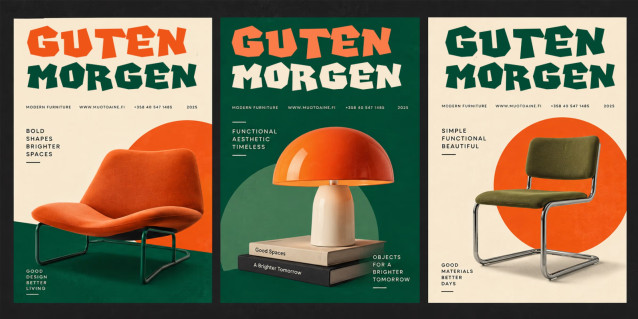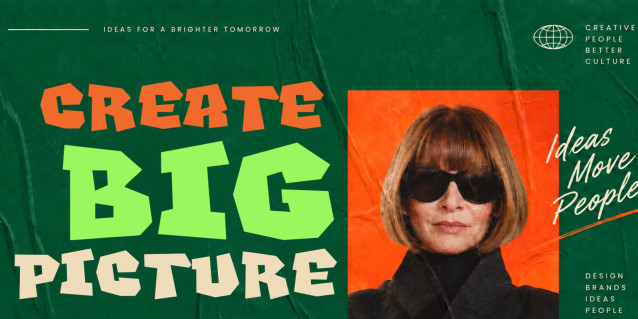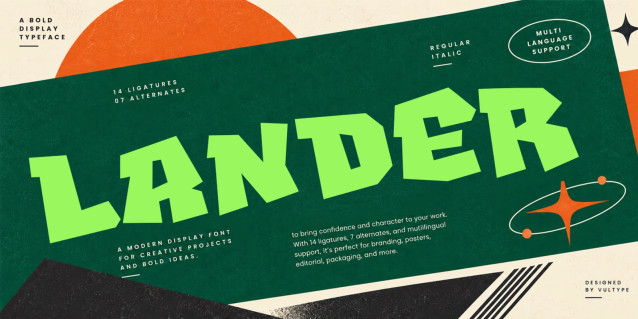
Lander Font
Lander is a bold display typeface built for brands that want to make a strong visual statement. Its chunky, angular letterforms combine playful irregularity with a confident editorial character, creating a distinctive look that feels modern, energetic, and expressive.
Designed to command attention, Lander works especially well for branding, posters, packaging, editorial headlines, advertising, fashion graphics, food and beverage identities, and creative campaigns. Its unconventional shapes give short words and large headlines an instantly recognizable personality.
Lander is made for designers who want typography to become part of the visual identity rather than simply support it. Use it oversized for impactful headlines, combine it with clean sans serifs for contrast, or let its expressive forms take center stage in bold brand compositions.